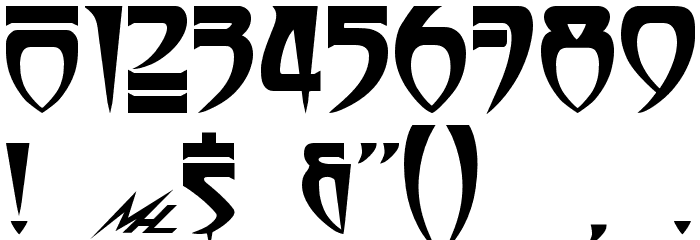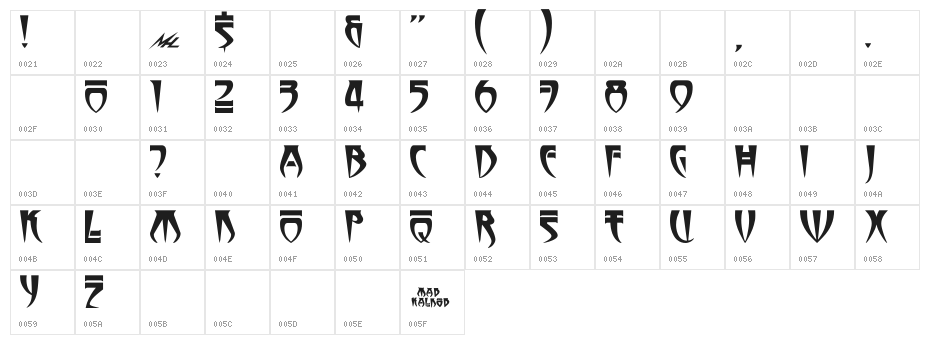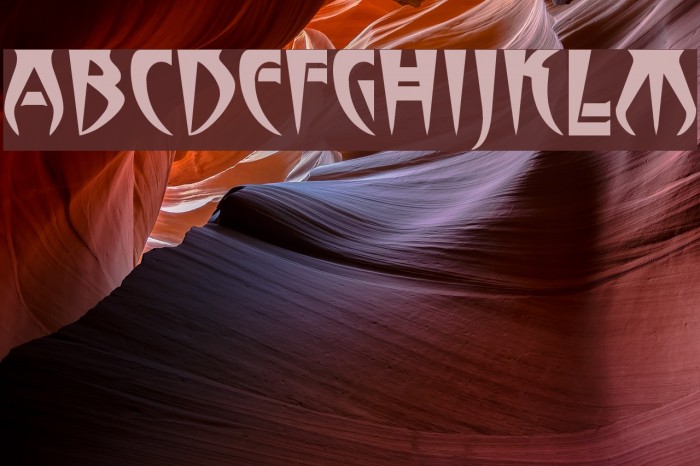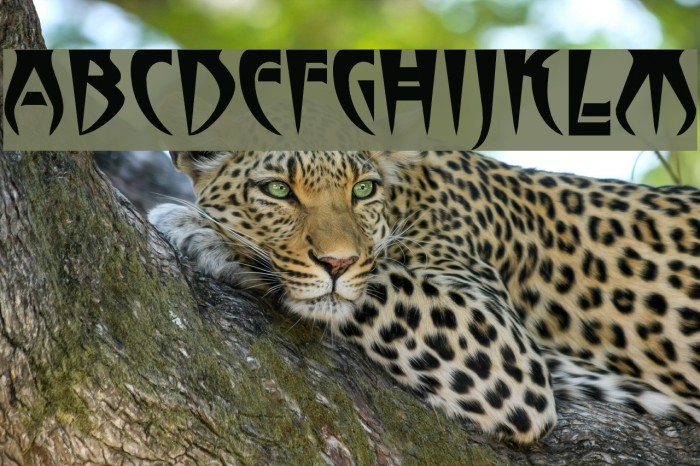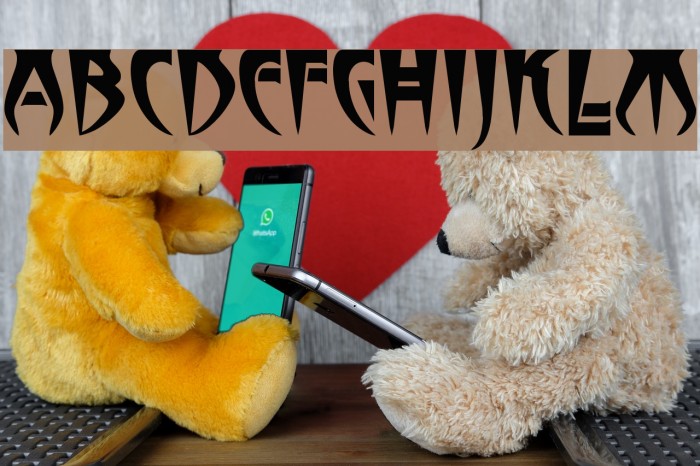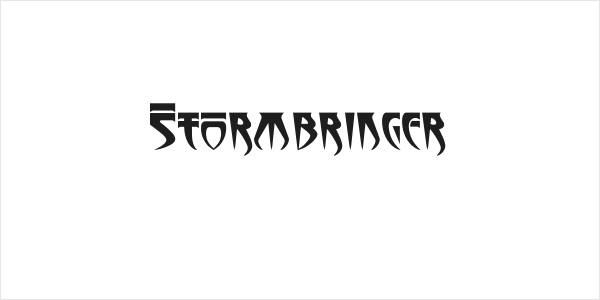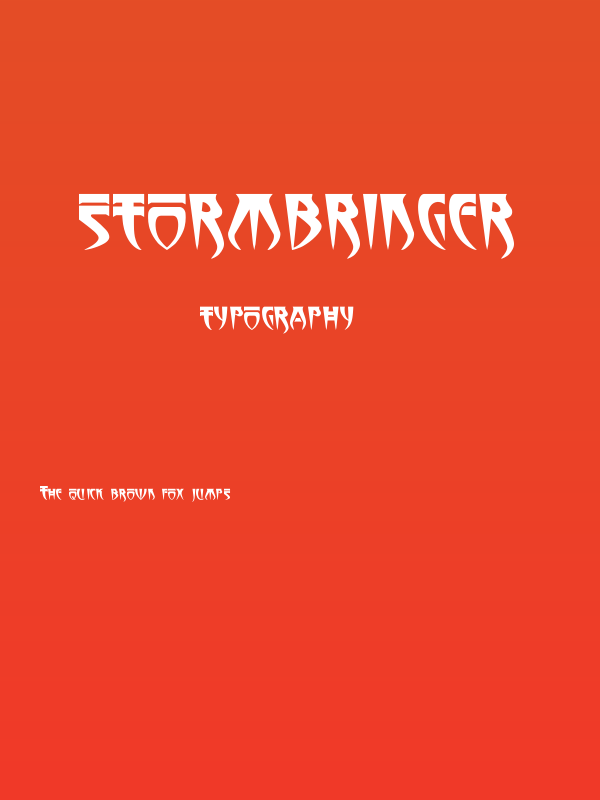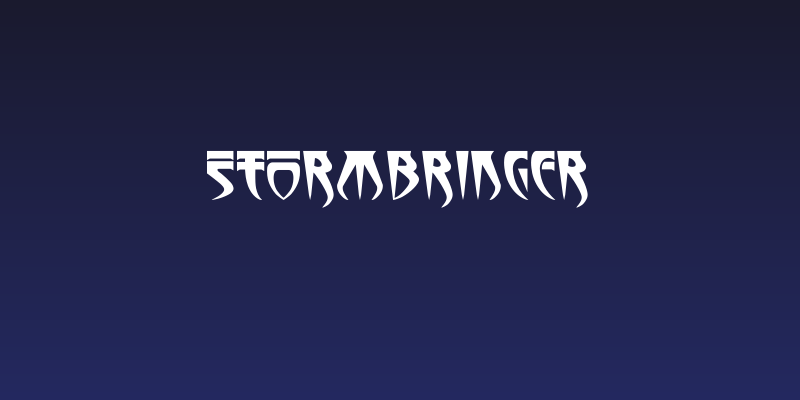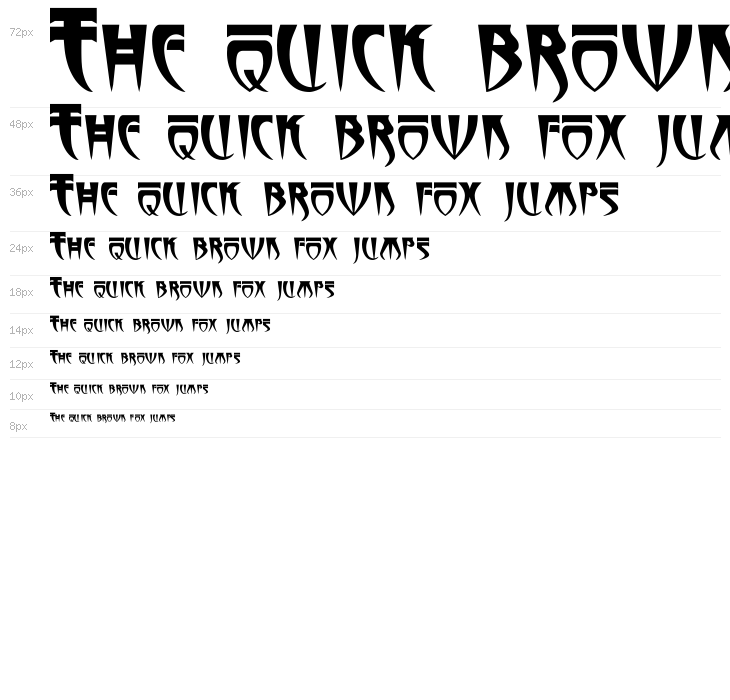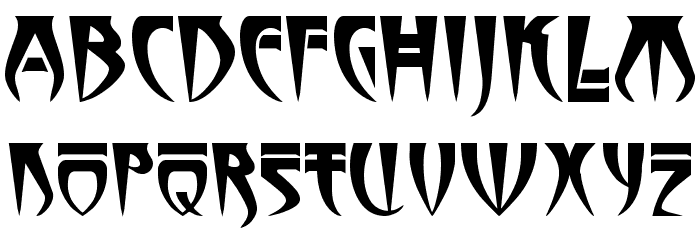
Stormbringer Font
Stormbringer Description
This font features a bold and dynamic design with sharp, angular edges and a futuristic aesthetic. The characters are highly stylized, with exaggerated serifs and a sense of motion, making them appear almost as if they are in action. The uppercase and lowercase letters maintain a consistent style, while the numbers and special characters complement the overall theme. The font's unique appearance makes it stand out, ideal for projects that require a strong visual impact.
| Proposed Projects | Ideal for video game titles, movie posters, sci-fi book covers, and branding for tech companies. |